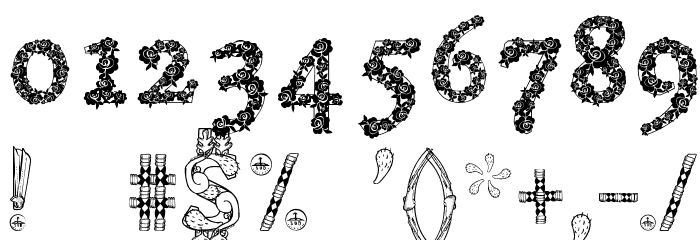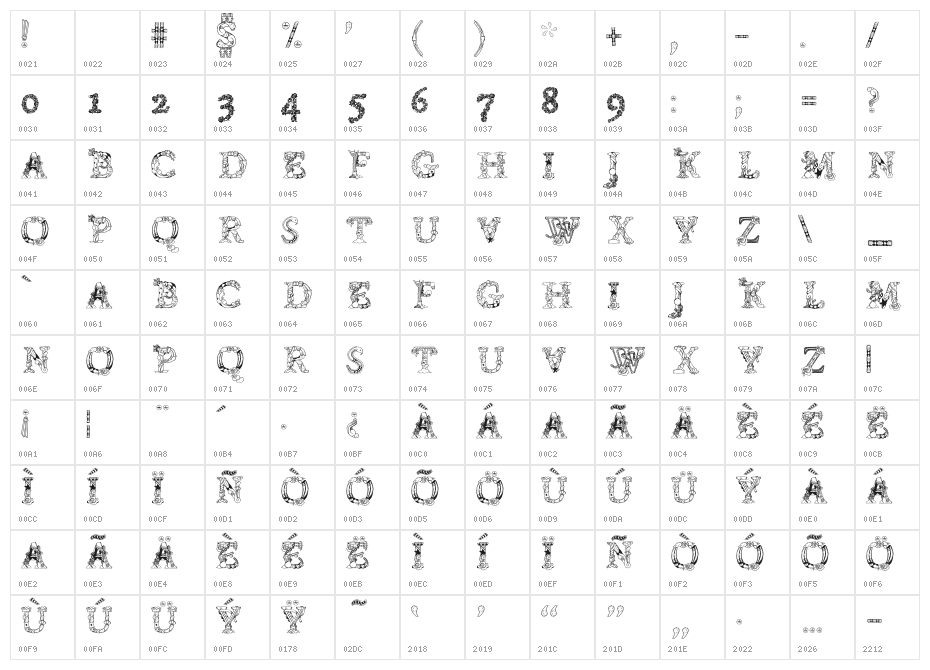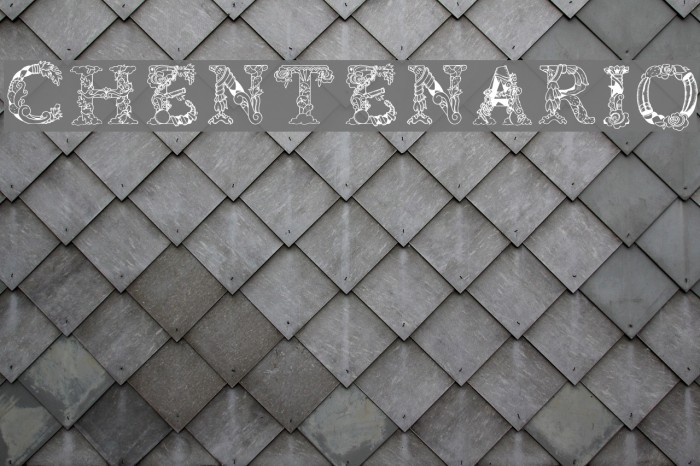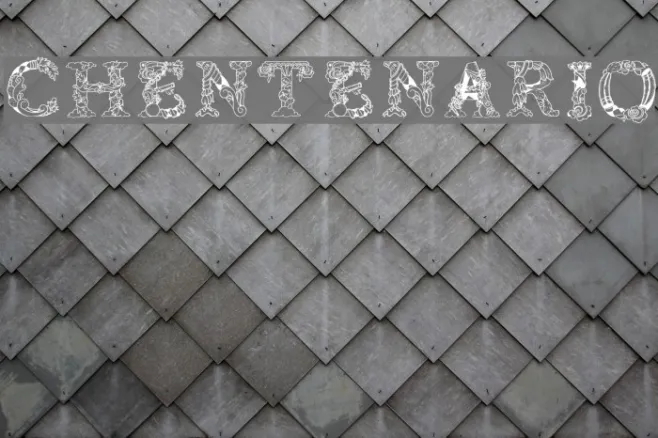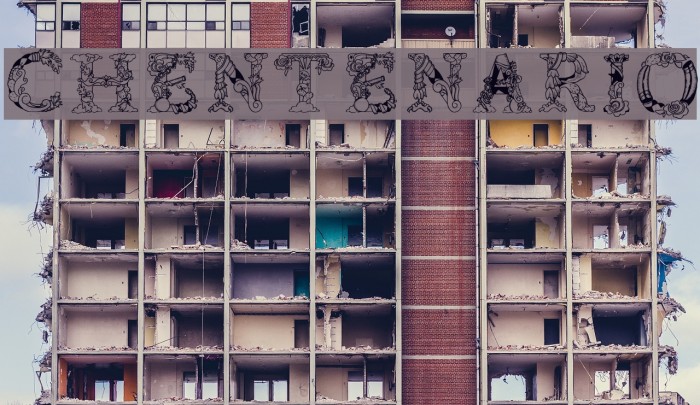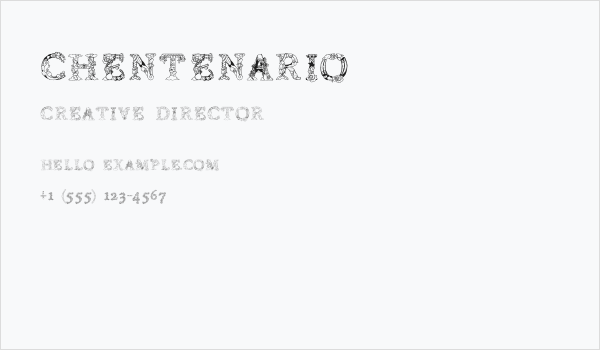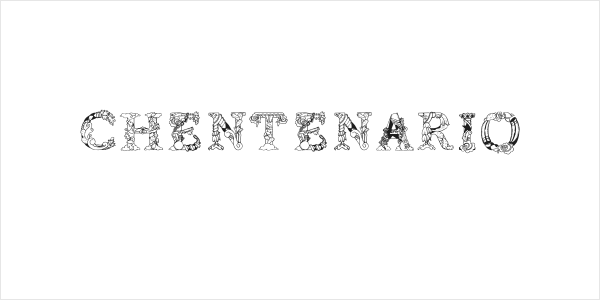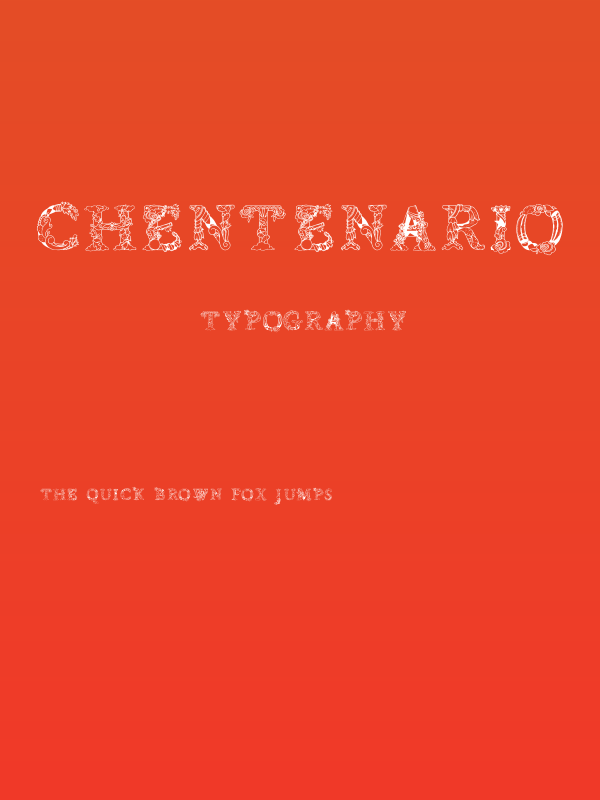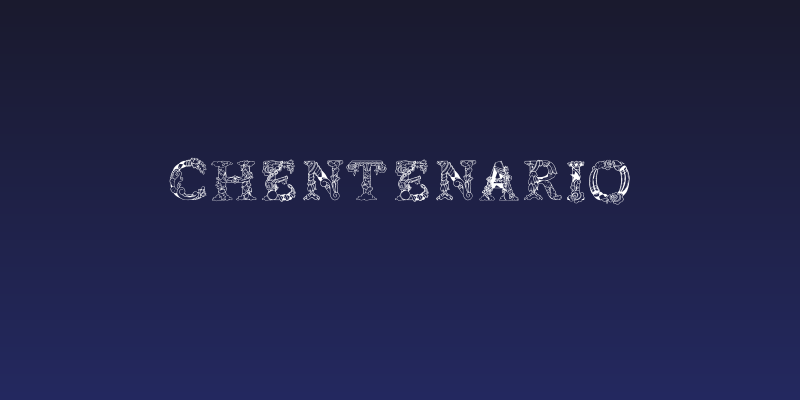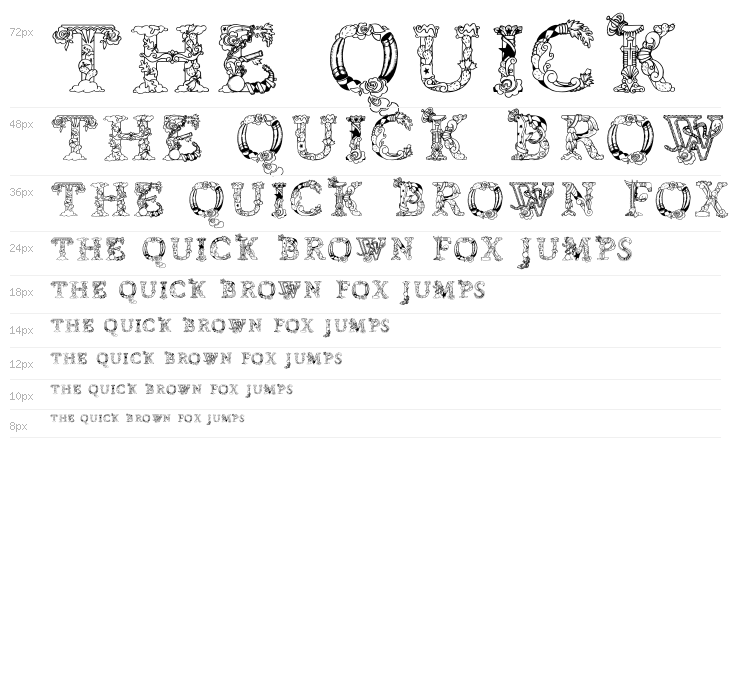
Chentenario Font
Chentenario Description
This font is a highly decorative and intricate typeface, featuring ornate floral and vine-like embellishments that intertwine with each letter and number. The design is reminiscent of vintage or classical styles, with each character appearing as a piece of art. The uppercase and lowercase letters maintain a consistent theme, with elaborate detailing that gives the font a unique and artistic flair. The numbers and special characters are equally adorned, making them stand out with their complex patterns. This font is ideal for projects that require a touch of elegance and sophistication, such as invitations, posters, or branding that seeks to convey a sense of luxury and tradition.
| Proposed Projects | Ideal for wedding invitations, luxury branding, vintage-themed posters, and artistic projects. |